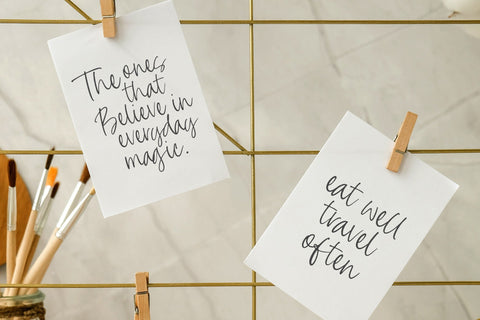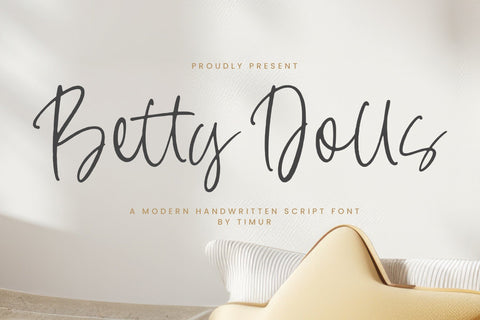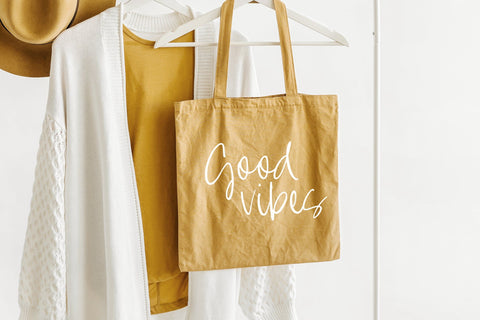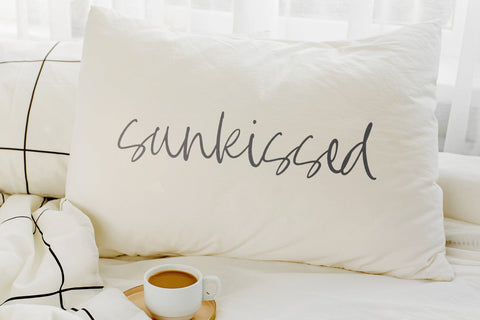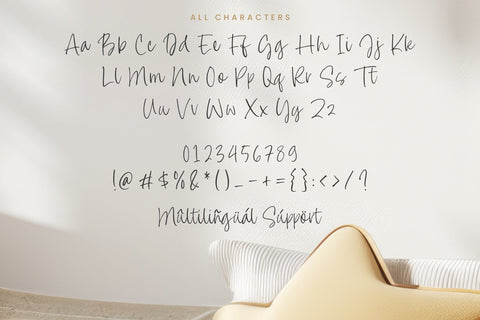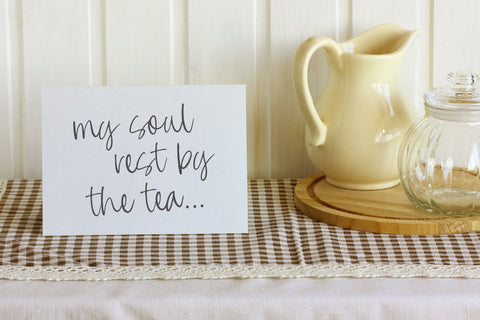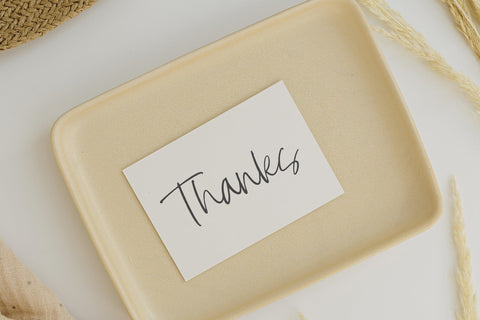
Betty Dolls - Modern Handwritten Script Font
Betty Dolls is a Modern Handwritten Script Font
This font is a chic and contemporary handwritten font that exudes playful elegance. Its fluid strokes and whimsical curls create a charming, touch, perfect for adding a stylish and casual flair to invitations, branding, or social media. The font’s balance between readability and artistic flair makes it a versatile choice for both formal and informal projects.
Betty Dolls also supports multilingualism